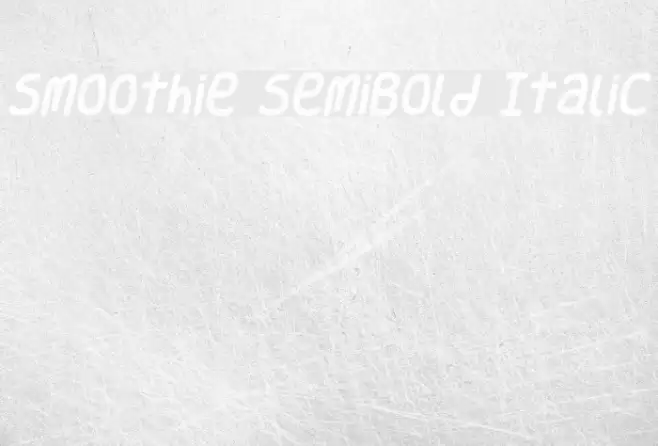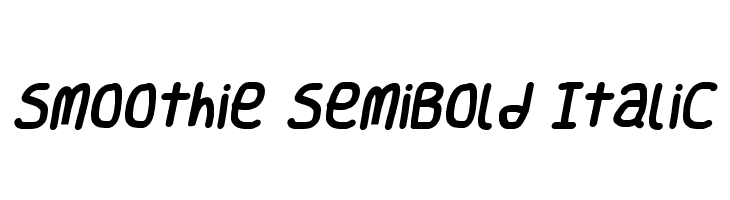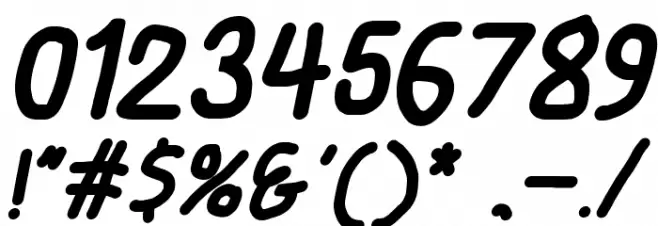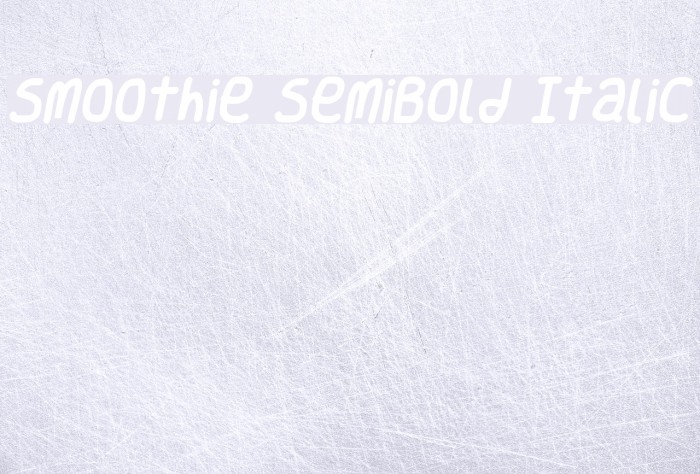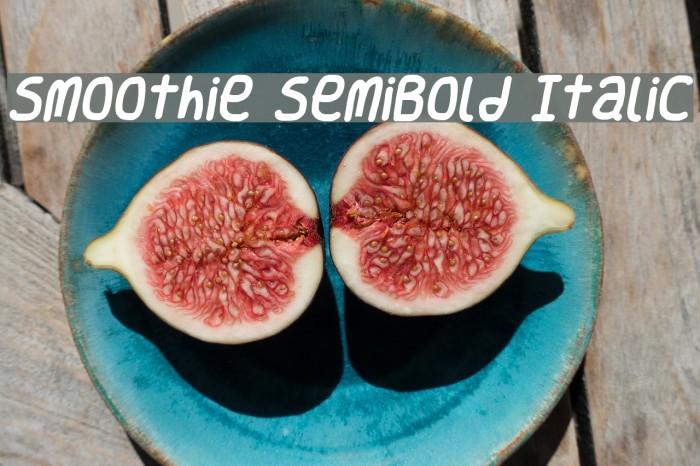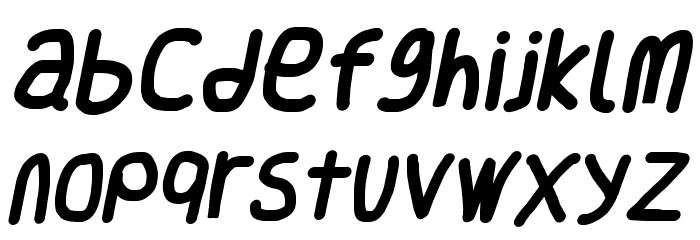
Smoothie SemiBold Italic Font
Smoothie SemiBold Italic Description
This font features a playful and casual style with a handwritten appearance. The letters are slightly slanted, giving it an italicized look, while maintaining a semi-bold weight that ensures readability and presence. The characters are rounded and smooth, contributing to a friendly and approachable aesthetic. The spacing between characters is normal, allowing for clear legibility without appearing cramped. The numbers and special characters maintain the same playful style, making the font versatile for various uses. Its overall style is modern and informal, suitable for projects that require a personal touch.
A playful, semi-bold, italic handwritten font with smooth, rounded characters from Uncategorized fonts.
- Proposed Projects: Ideal for greeting cards, children's books, casual branding, and social media graphics.
- Overall Style: Modern, Casual
- Use Case: Headlines, Logos, Informal Text